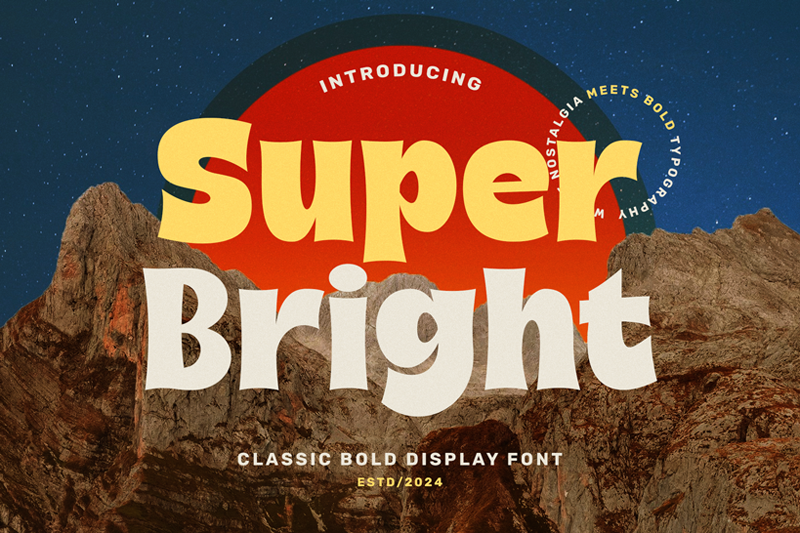
Font name: | Super Bright |
This font is for PERSONAL USE ONLY!. If you want to use this font for commercial purposes, you will need to purchase a commercial license. You can purchase a commercial license at https://allsuperfont.com/product/super-bright/ Super Bright: A Boldly Classic Display Font Super Bright is more than just a name - it's a statement. This display font brings a touch of timeless boldness to your designs. Inspired by classic styles, Super Bright boasts thick, confident letterforms that guarantee to grab attention. |